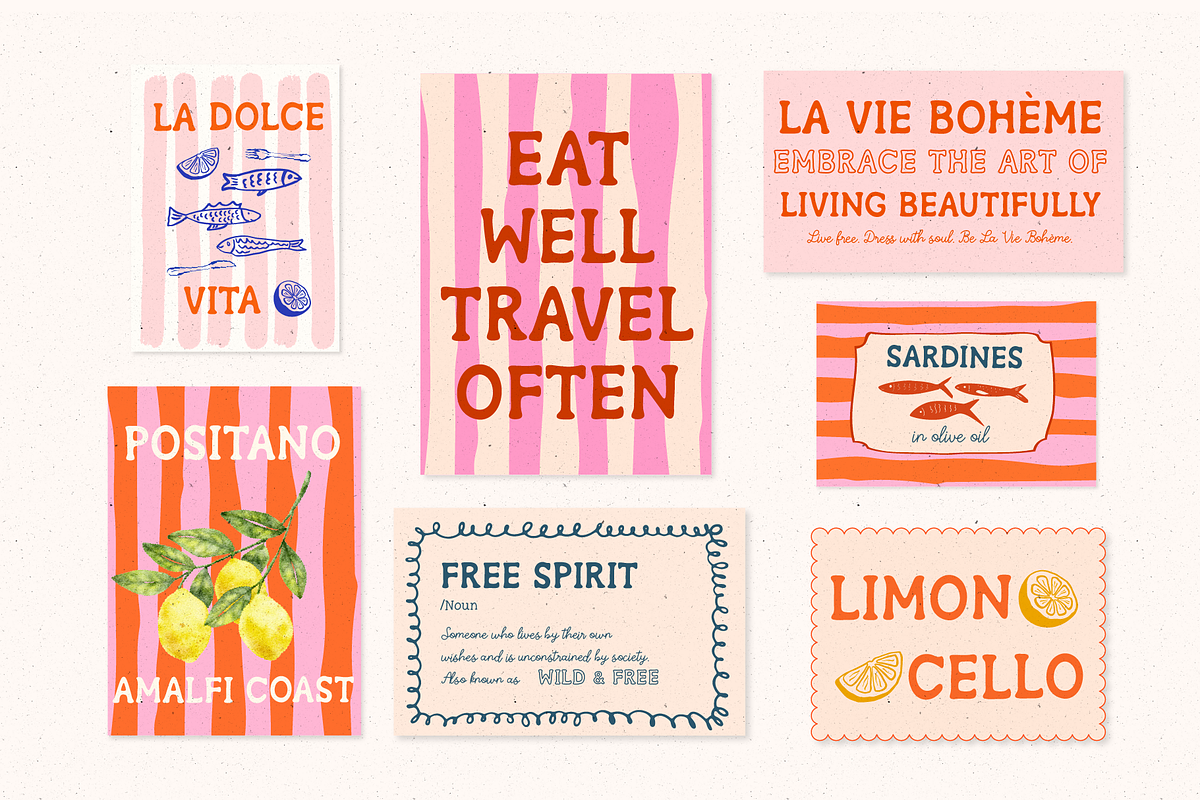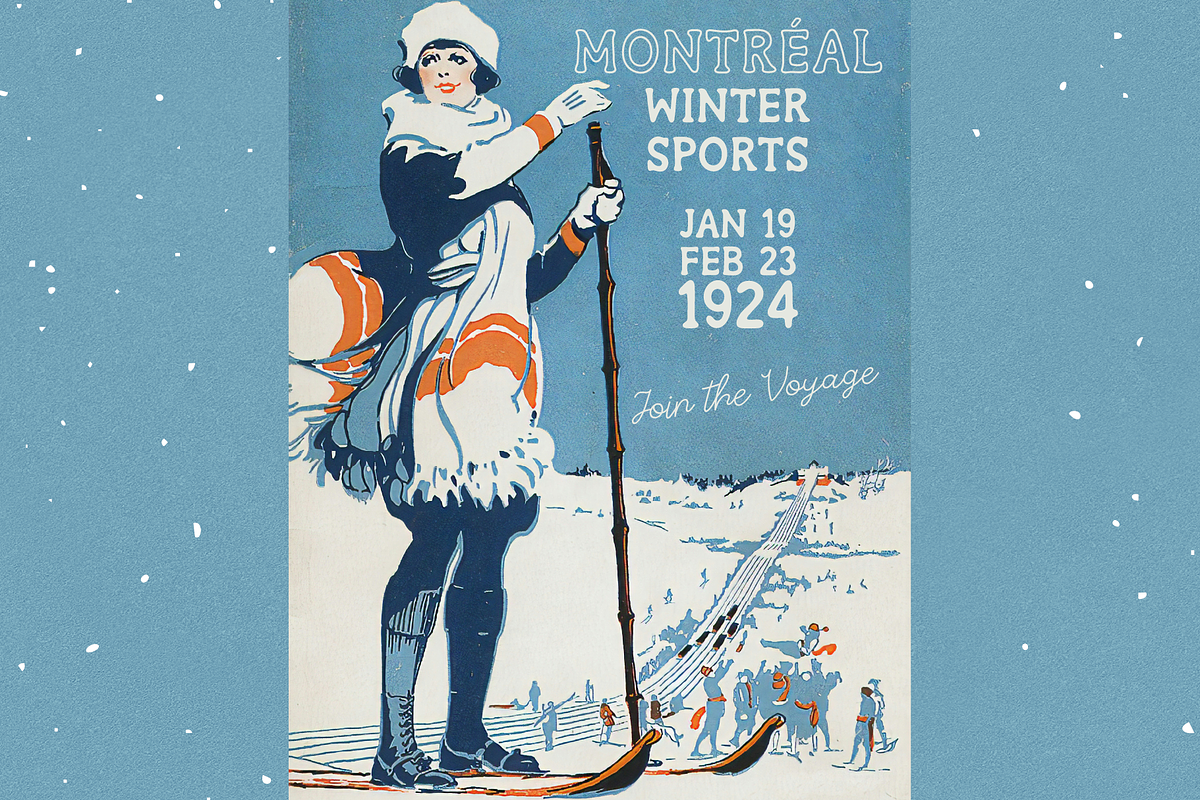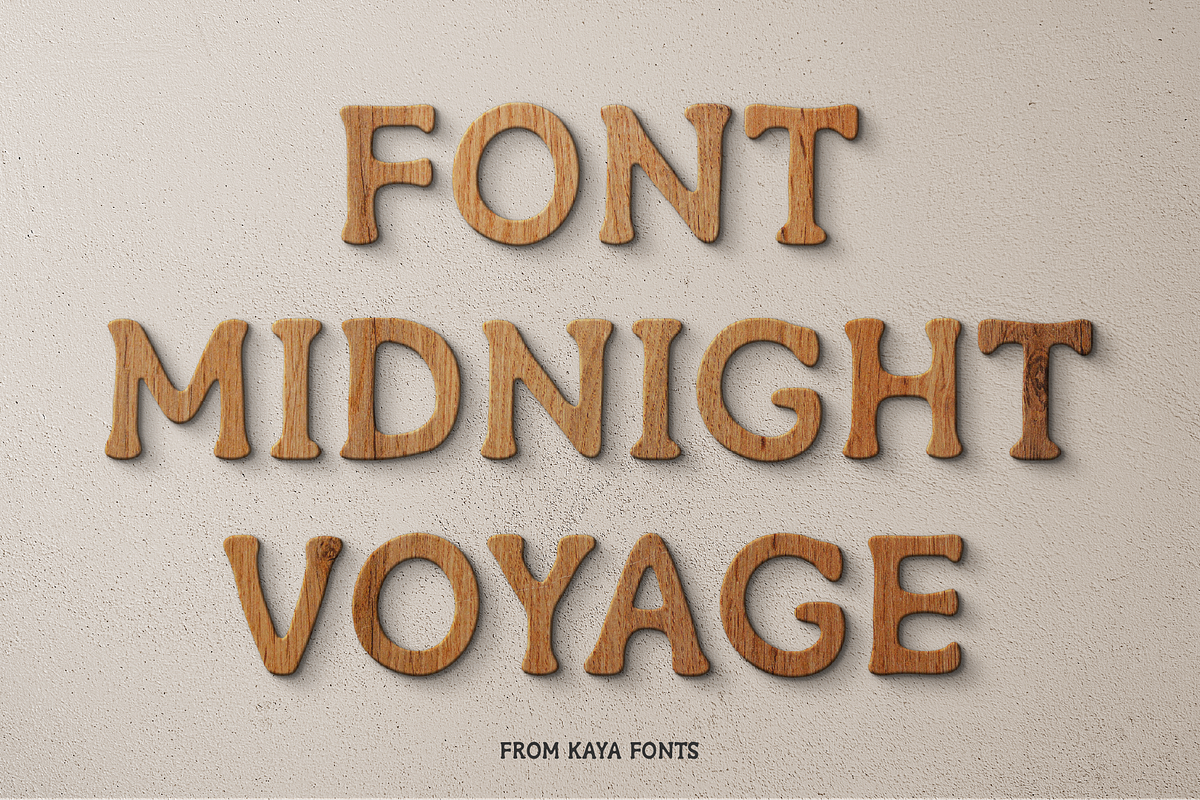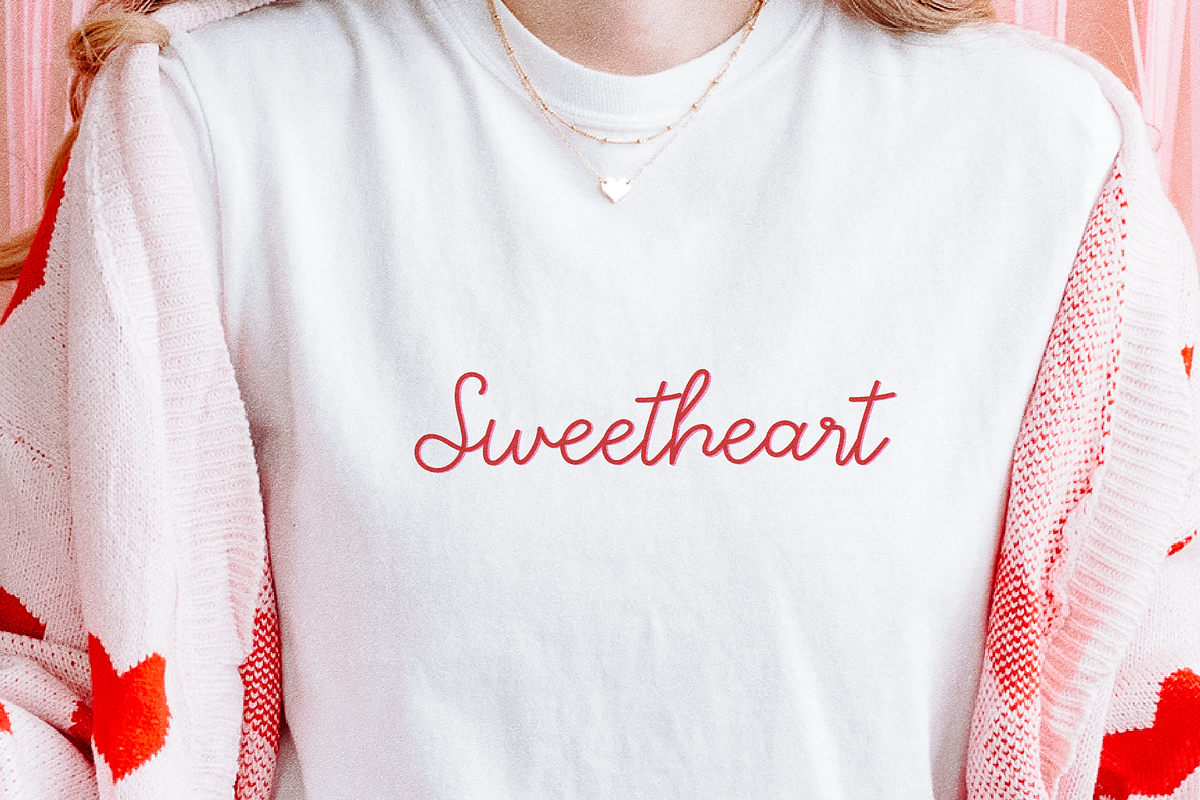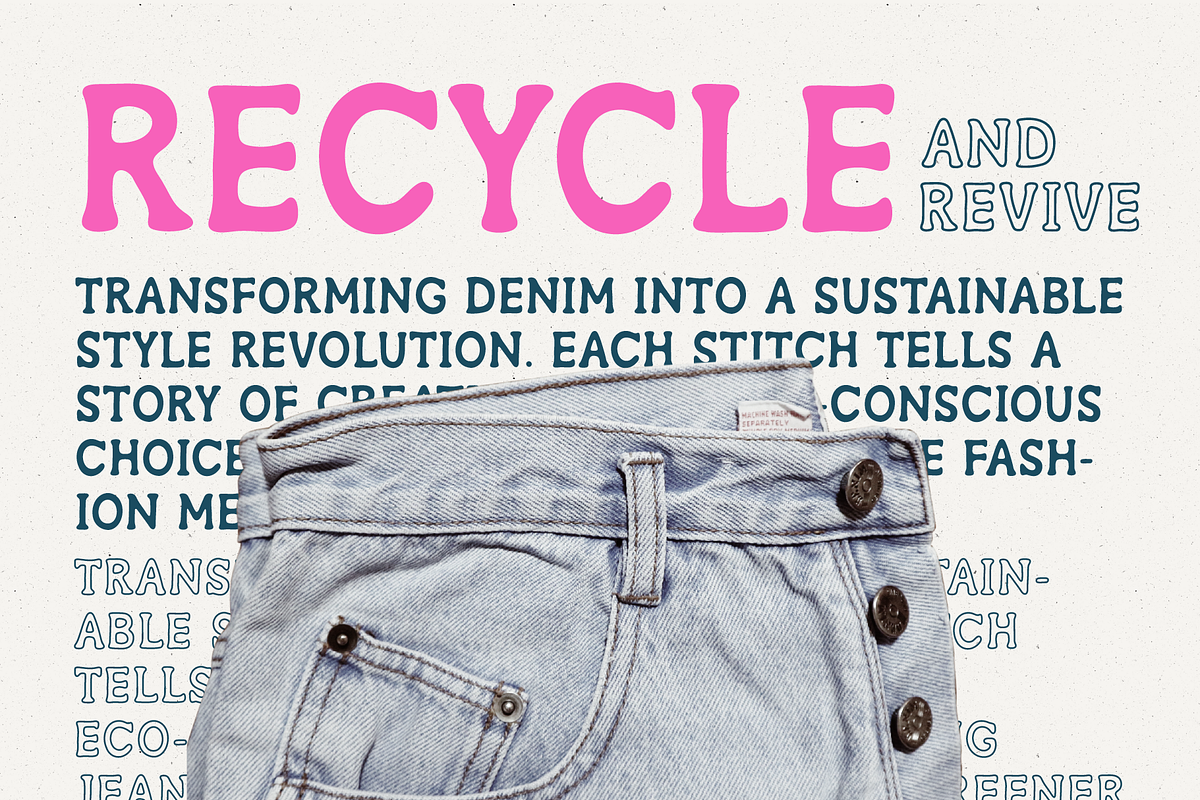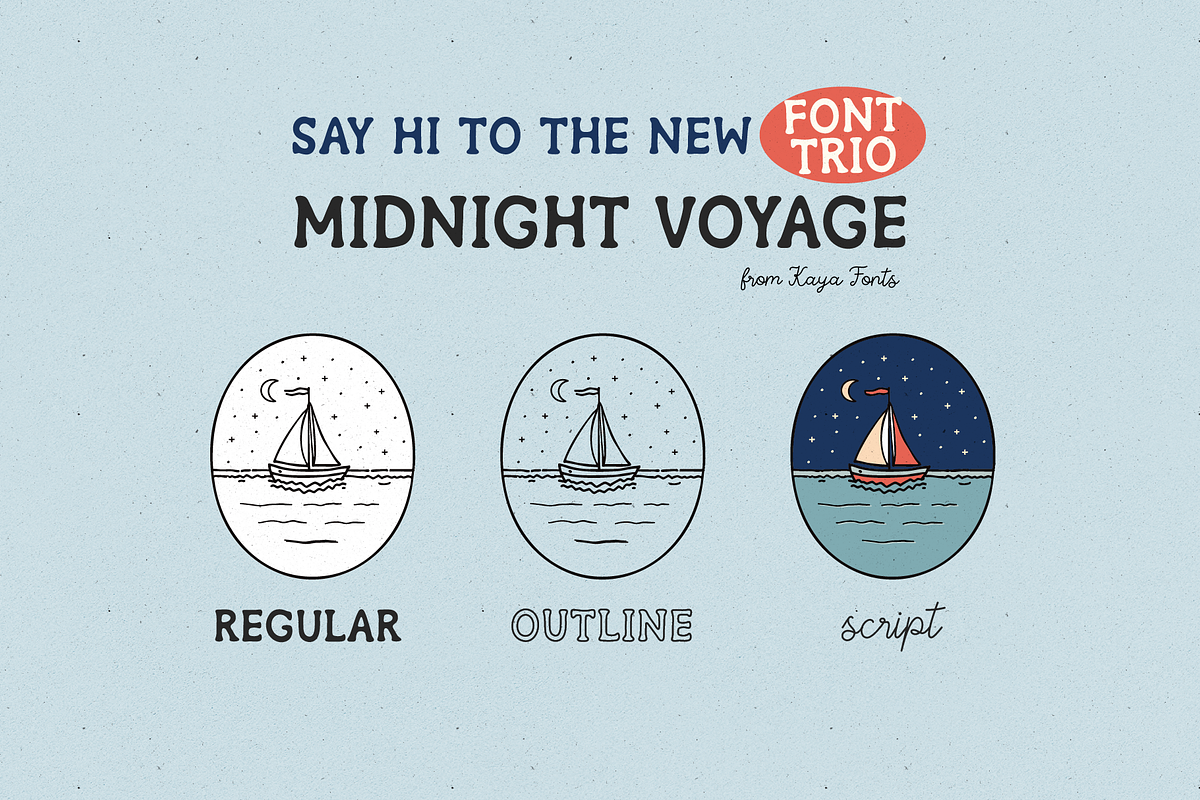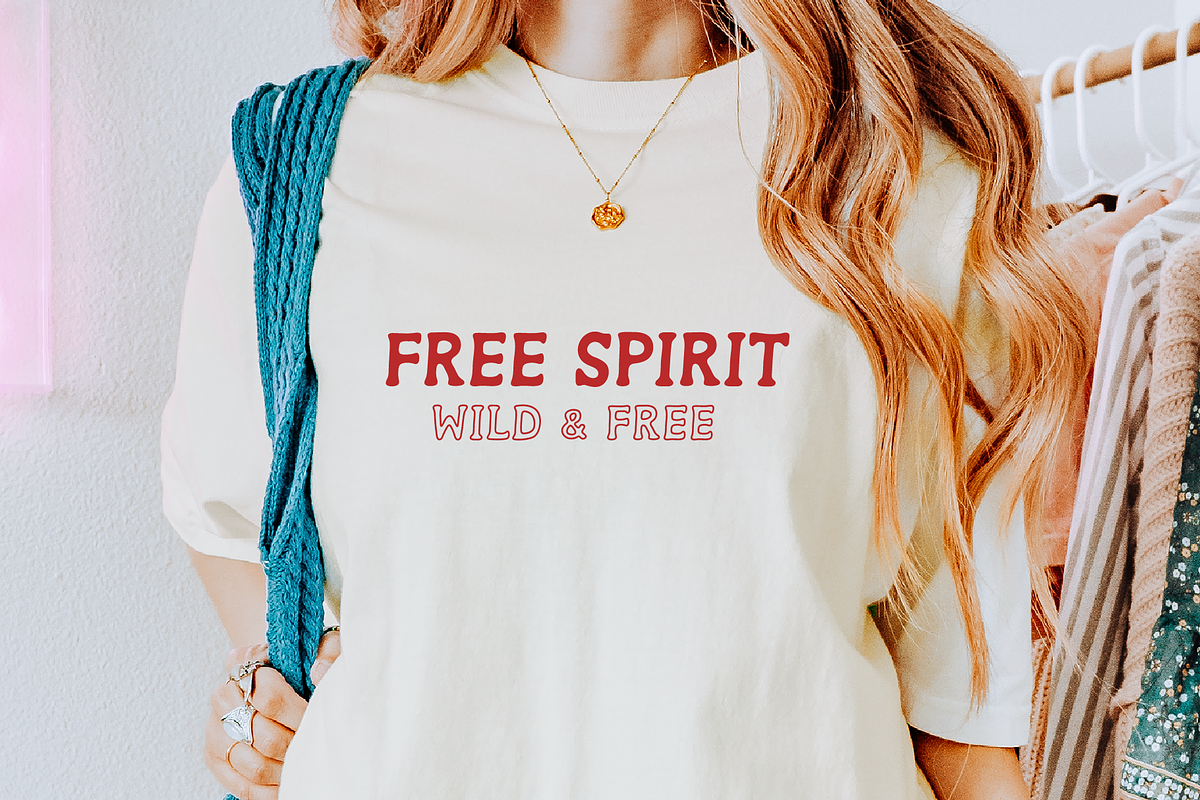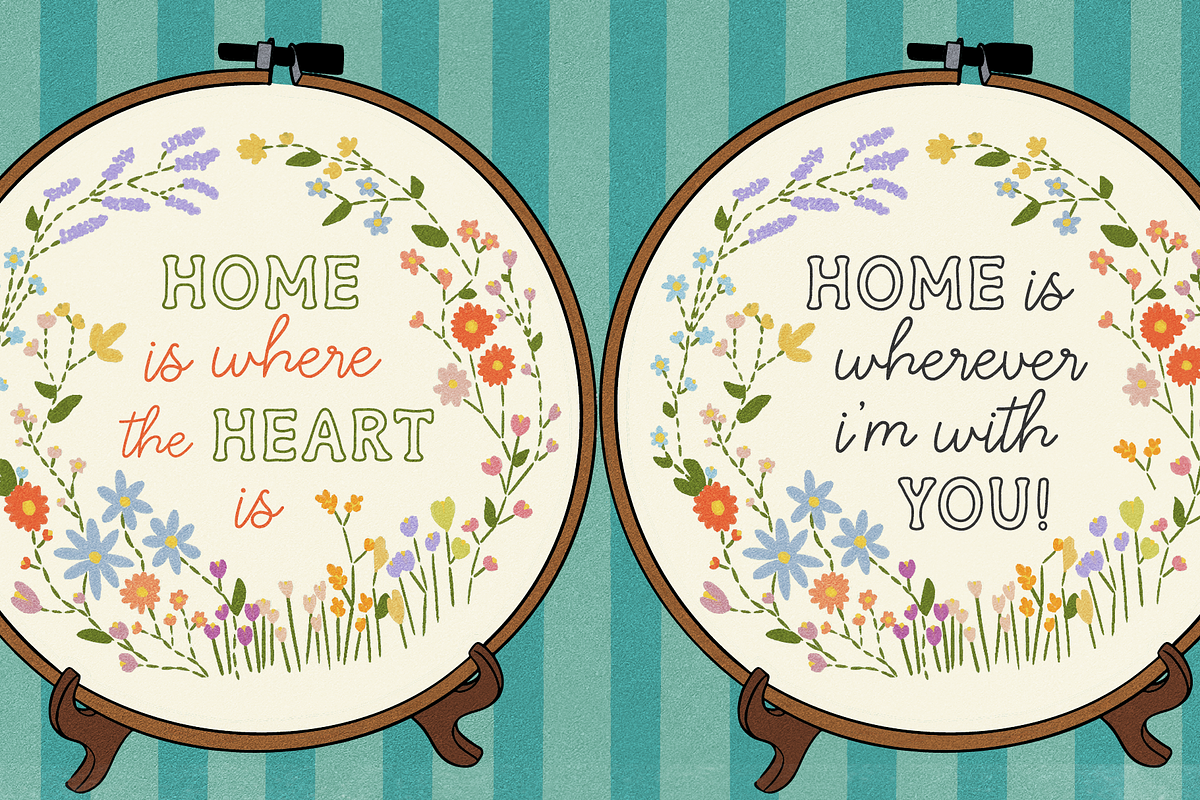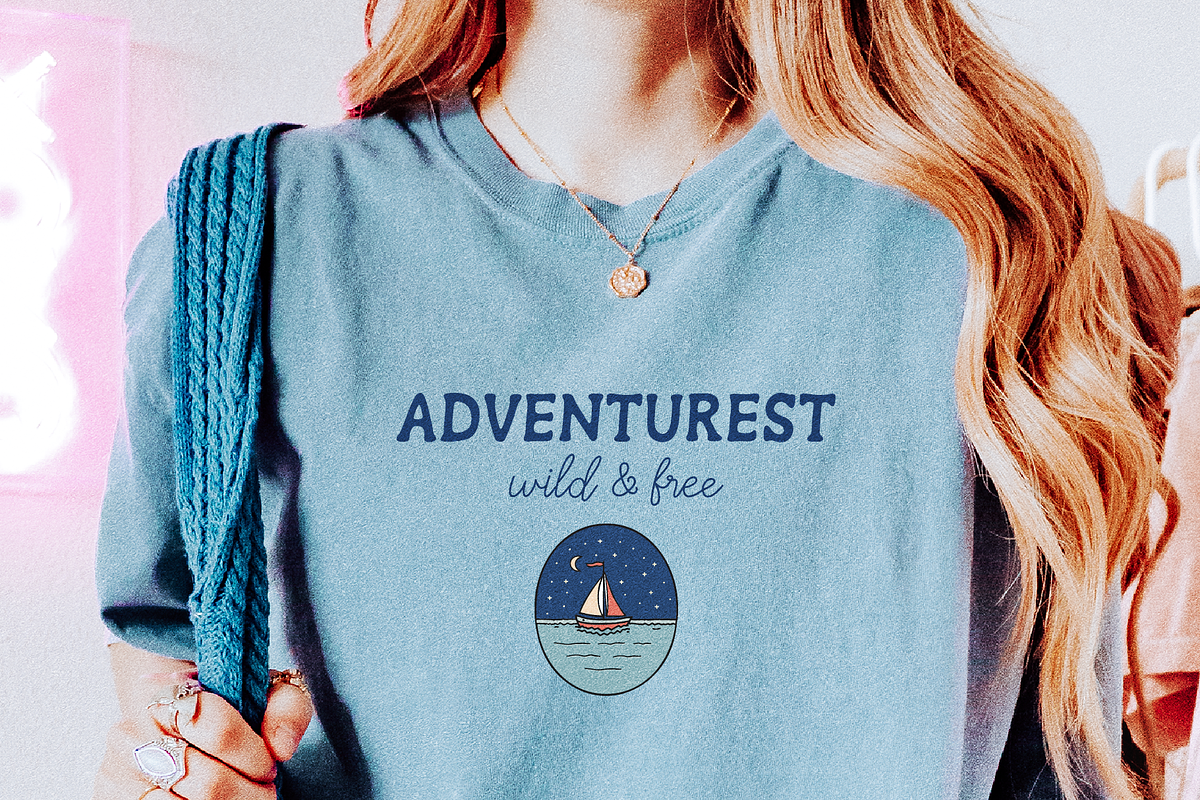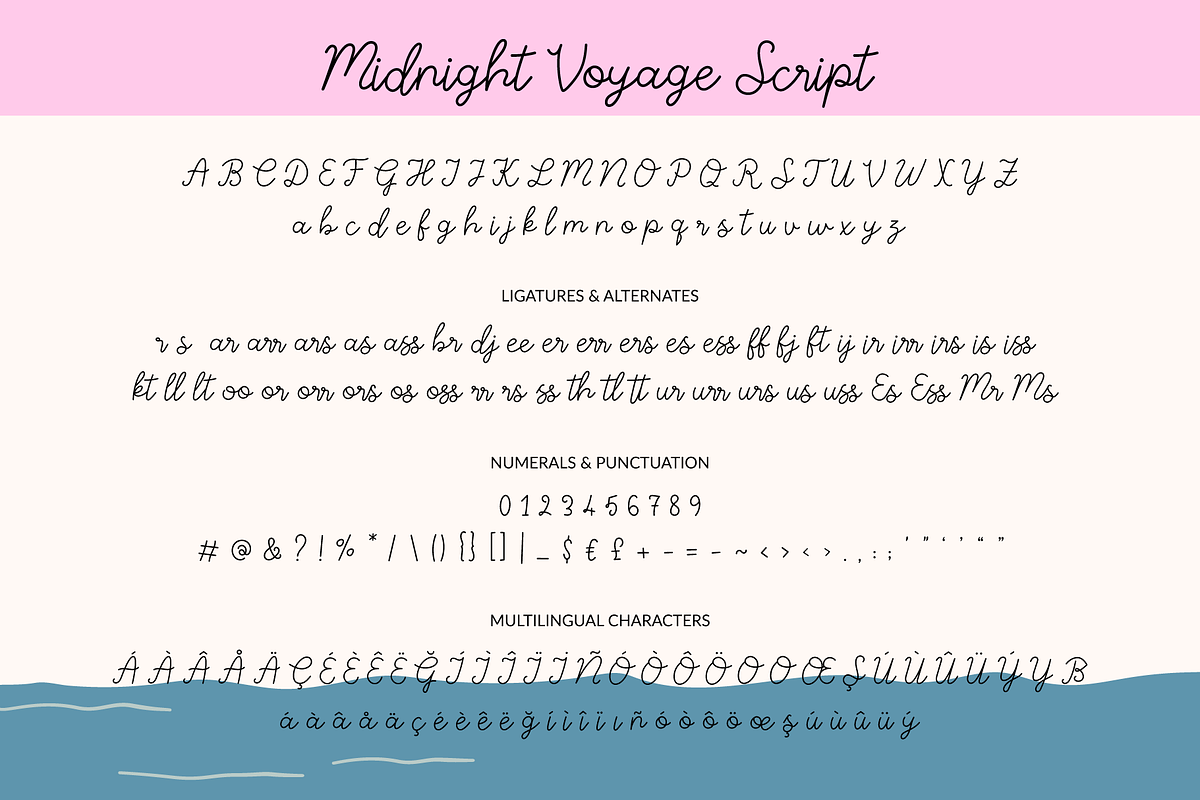
Midnight Voyage Summer Beach Travel
Midnight Voyage is a bold handmade font trio inspired by dreamy travels, coastal nights, vintage postcards, and carefree summer adventures.
With regular, outline, and script styles included, this playful display font is perfect for posters, apparel, beach designs, travel graphics, invitations, branding, stickers, packaging, Cricut projects, Canva designs, and fun creative layouts.